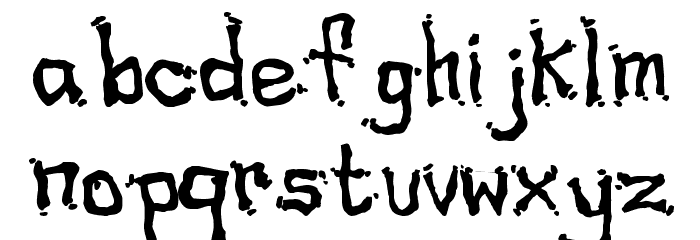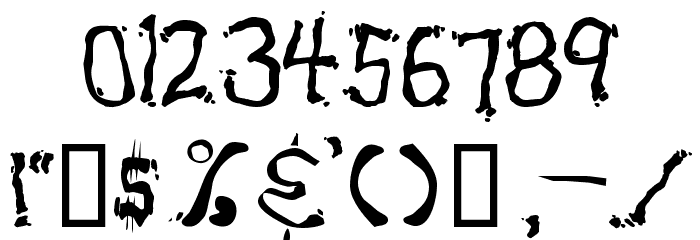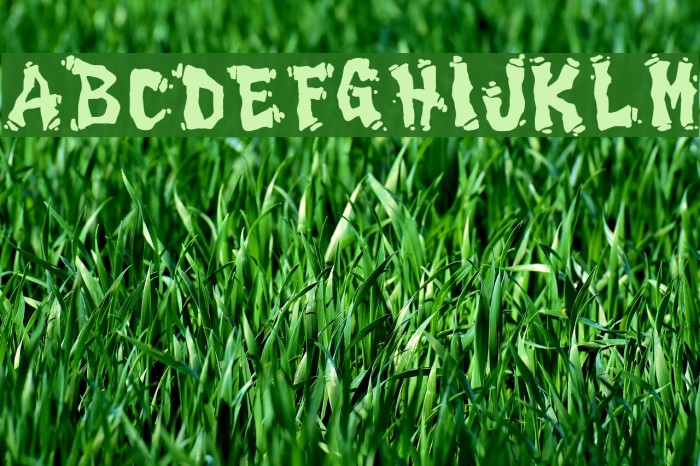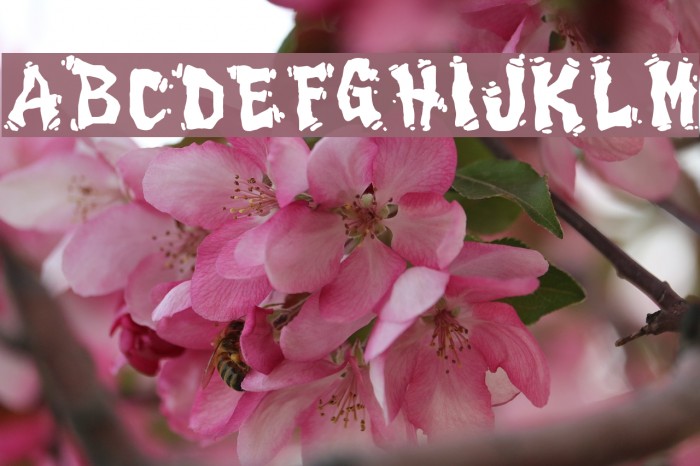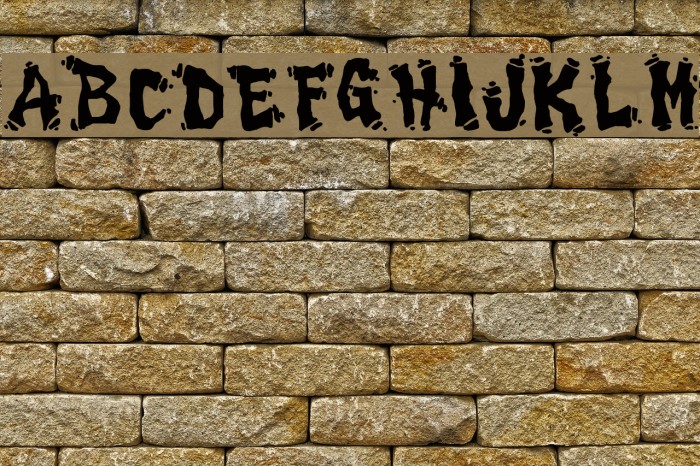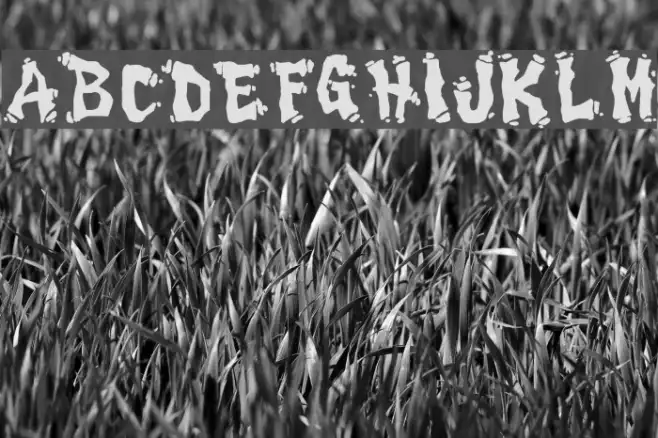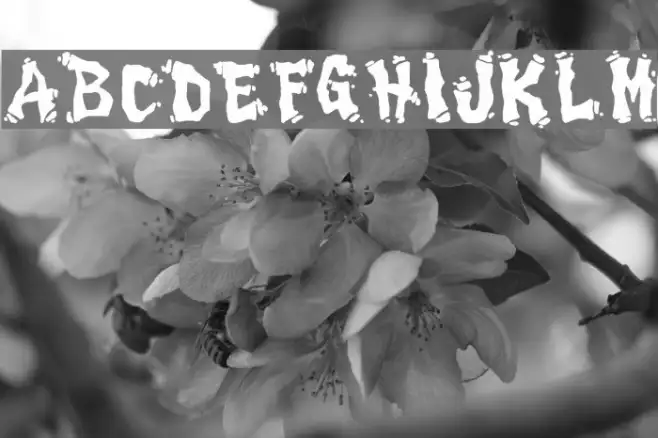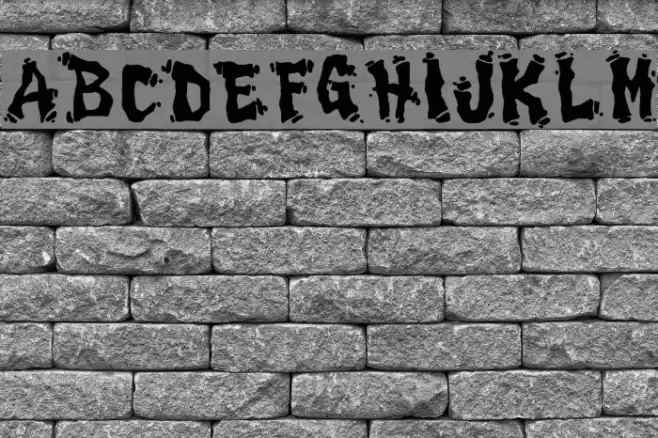
Drippy Font
This font features a unique, dripping effect that gives each character a dynamic and fluid appearance. The uppercase and lowercase letters, as well as the numerals, are designed with irregular edges and a bold presence, creating a sense of movement and energy. The special characters maintain this theme, adding a cohesive look across the entire set. The font's style is reminiscent of liquid or paint dripping, making it ideal for projects that require a bold, artistic touch. Its distinct appearance ensures that it stands out, making it suitable for eye-catching designs.
A bold, dripping effect font with a dynamic and artistic style.
- Proposed Projects: Perfect for Halloween-themed designs, horror movie posters, edgy graphic design projects, or any creative work that requires a bold and artistic touch.
- Use Case: Headlines, Posters, Logos